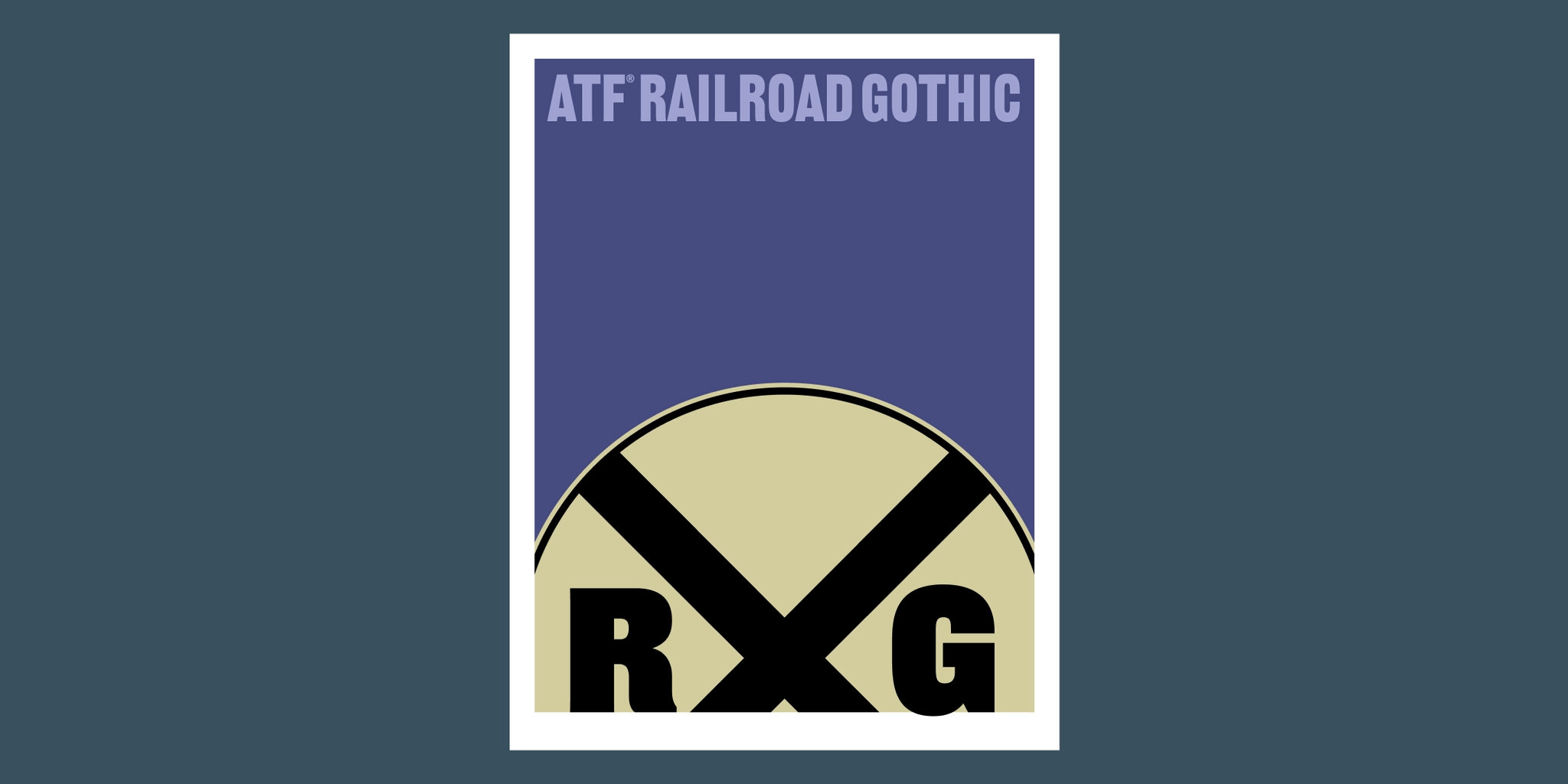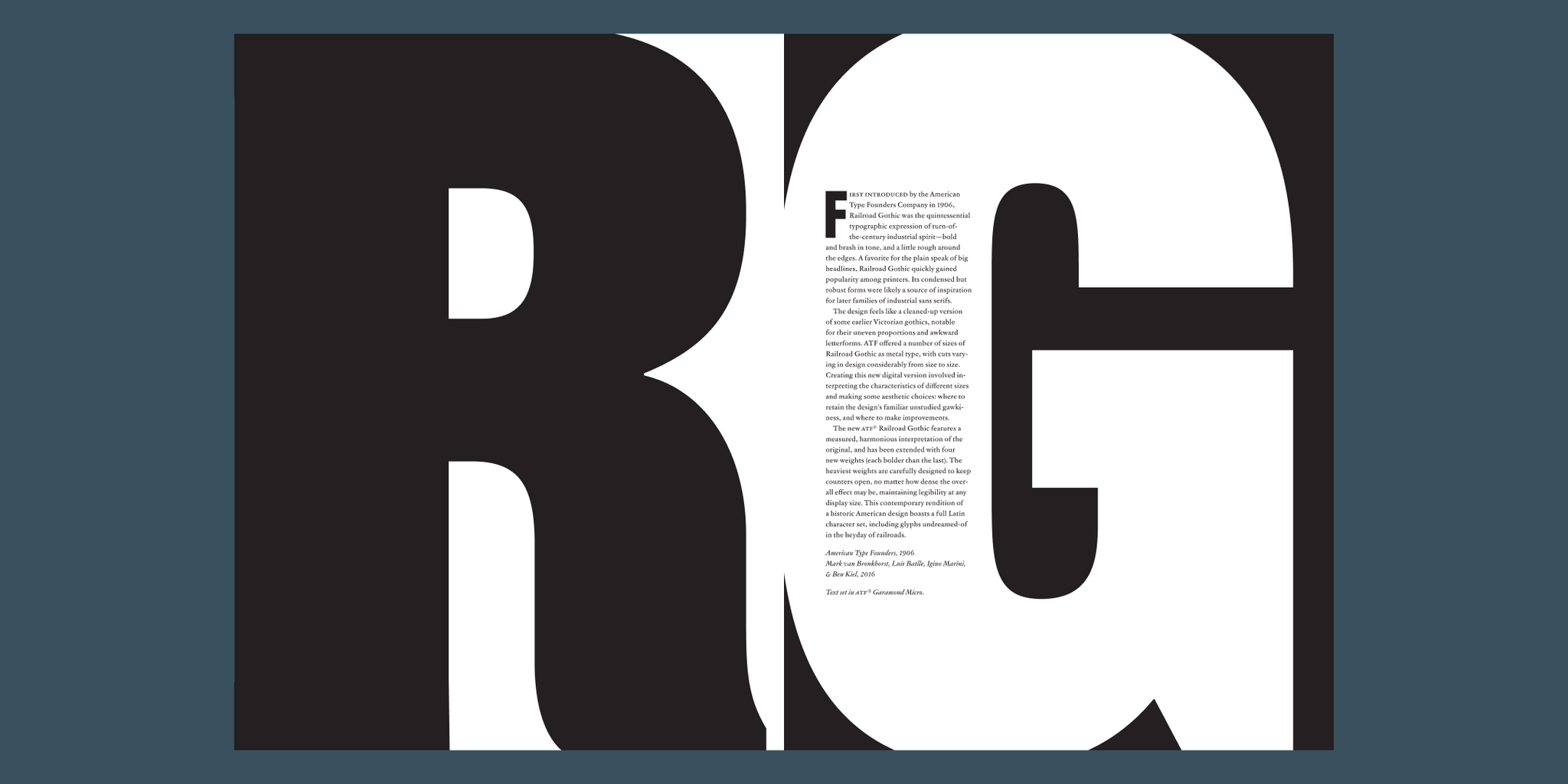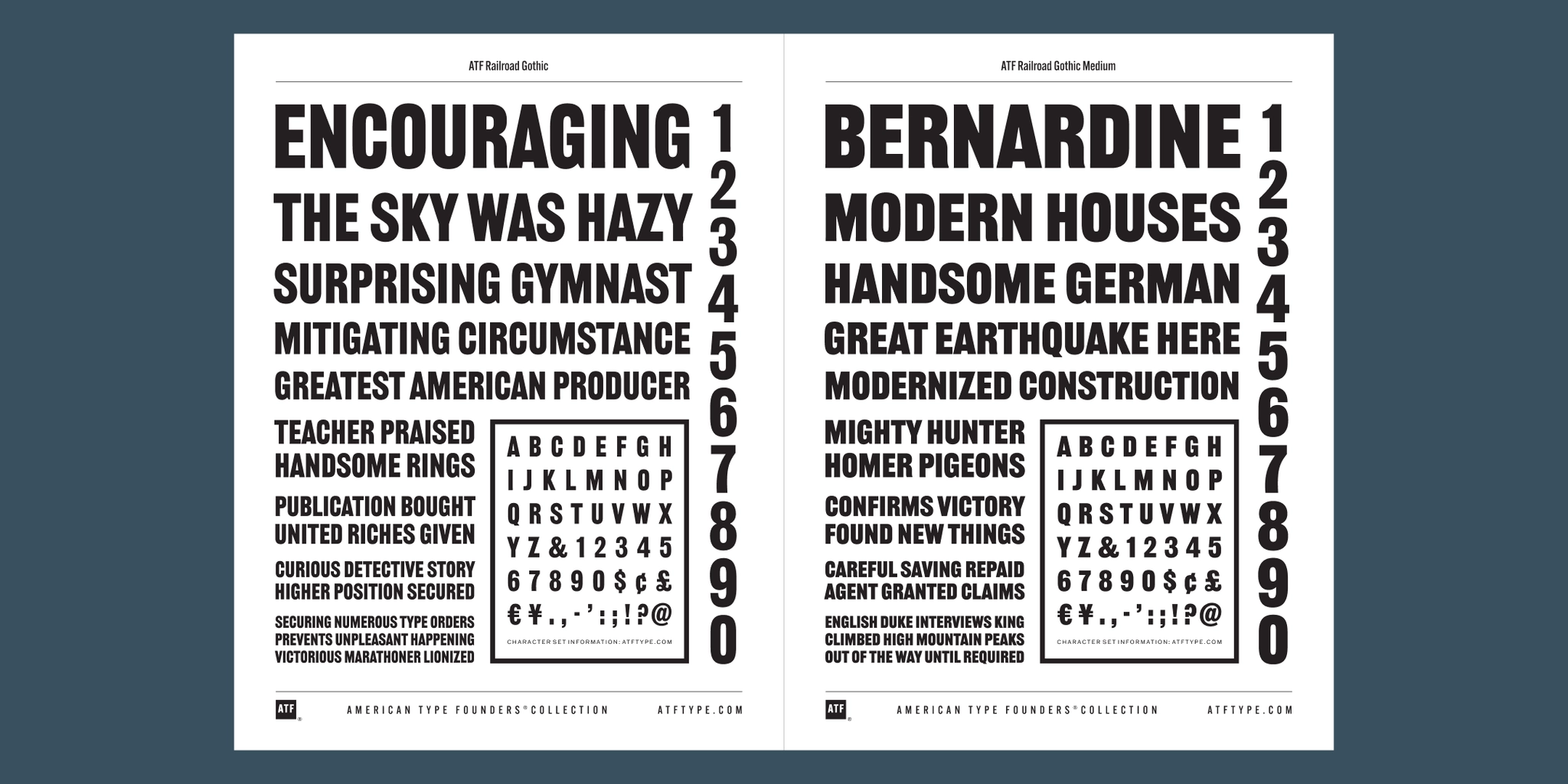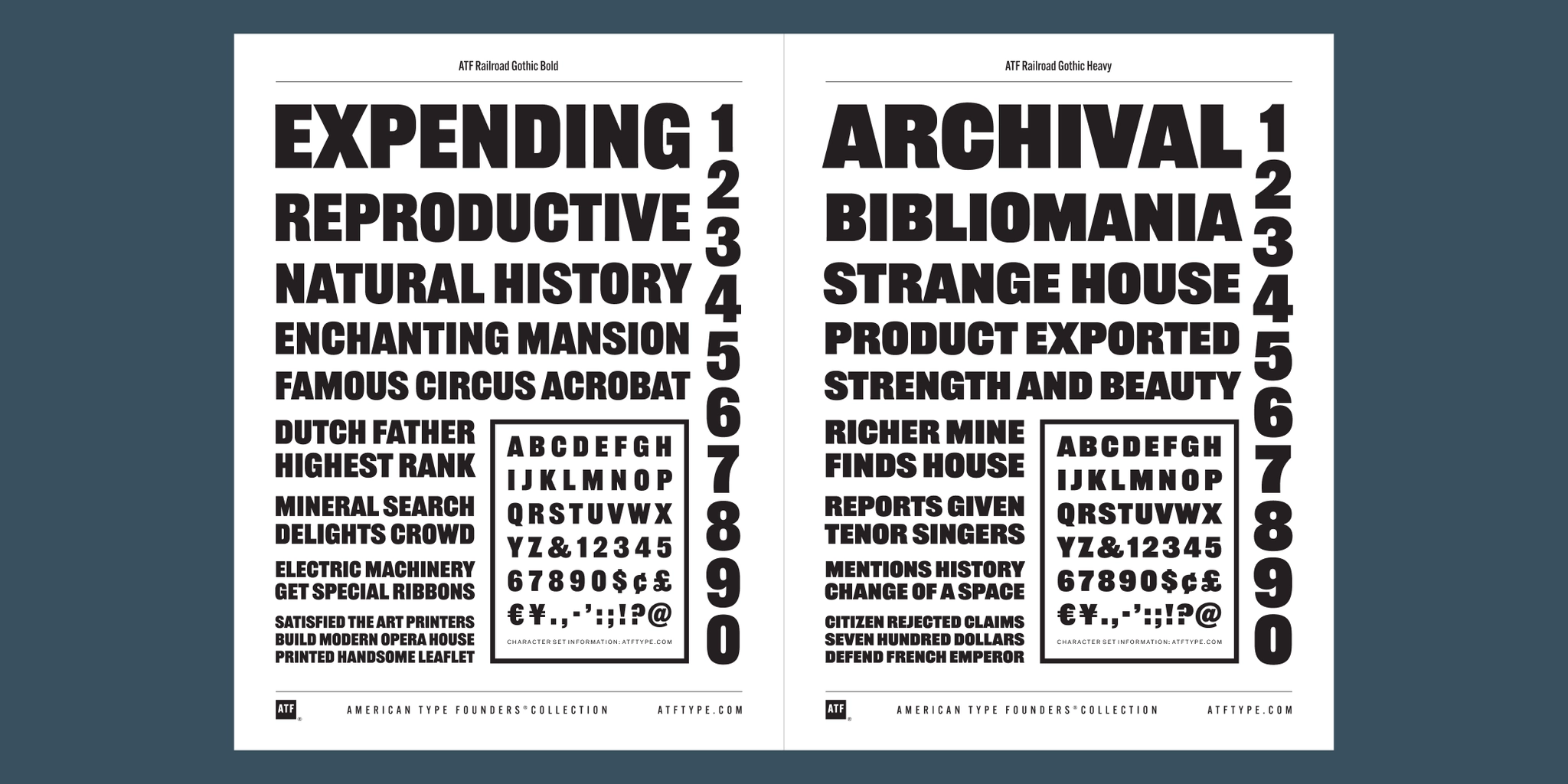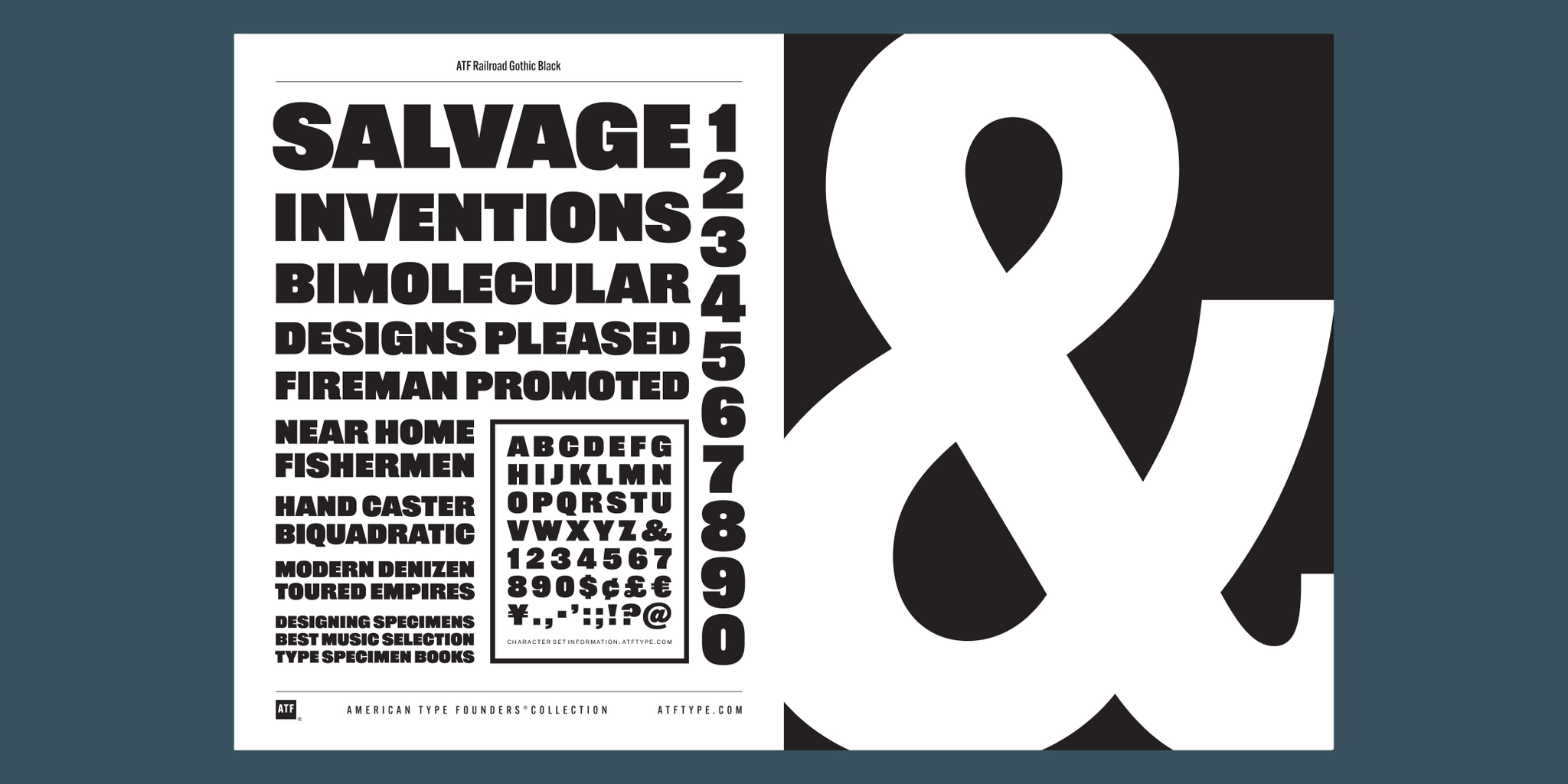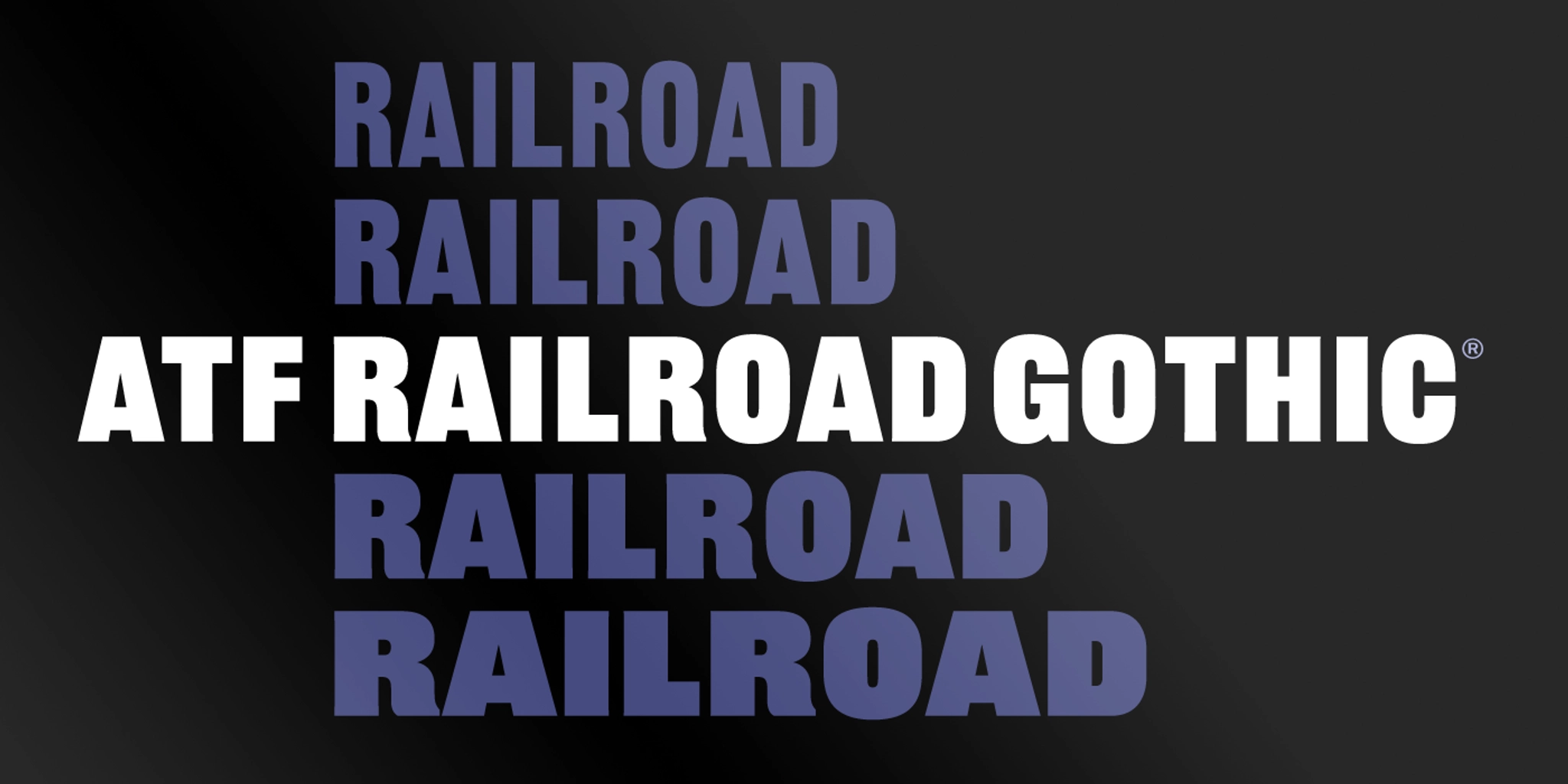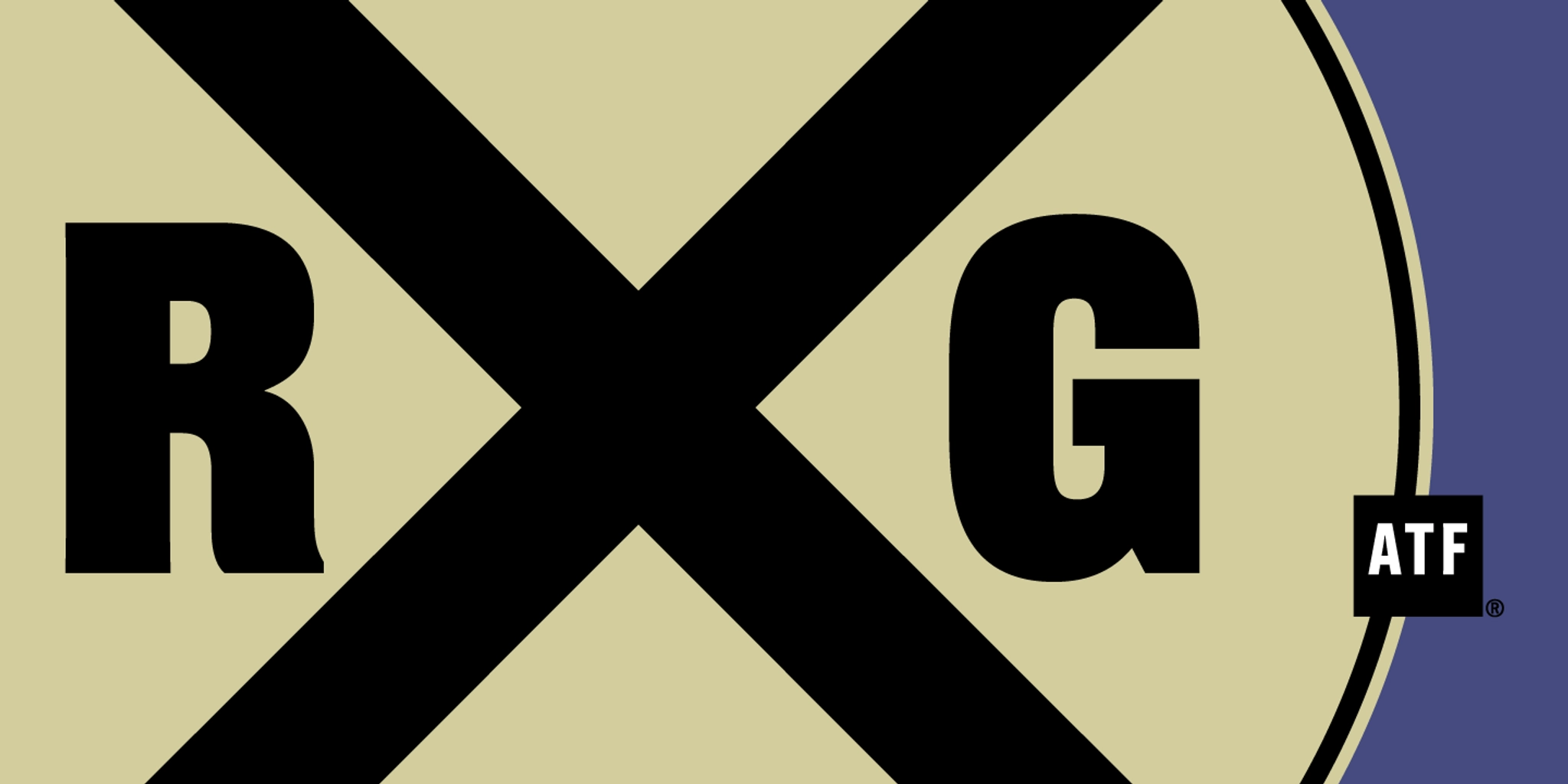
Railroad Gothic Font Family
Designed by Mark Van Bronkhorst, Luis Batlle, Igino Marini, and Ben Kiel.
1906 and 2016.
The American Type Founders collection was developed by Mark van Bronkhorst.
Railroad Gothic is a robust industrial-age condensed sans serif font family made for big headlines. Expanded to include 5 weights and a layered version, too.
First introduced by the American Type Founders Company in 1906, Railroad Gothic was the quintessential typographic expression of turn-of-the-century industrial spirit — bold and brash in tone, and a little rough around the edges. A favorite for the plain speak of big headlines, Railroad Gothic quickly gained popularity among printers. Its condensed but robust forms were likely a source of inspiration for later families of industrial sans serifs.
The design feels like a cleaned-up version of some earlier Victorian gothics, notable for their uneven proportions and awkward letterforms. ATF offered a number of sizes of Railroad Gothic as metal type, with cuts varying in design considerably from size to size. Creating this new digital version involved interpreting the characteristics of different sizes and making some aesthetic choices: where to retain the design’s familiar unstudied gawkiness, and where to make improvements.
The new ATF® Railroad Gothic features a measured, harmonious interpretation of the original, and has been extended with four new weights (each bolder than the last). The heaviest weights are carefully designed to keep counters open, no matter how dense the overall effect may be, maintaining legibility at any display size. This contemporary rendition of a historic American design boasts a full Latin character set, including glyphs undreamed-of in the heyday of railroads.